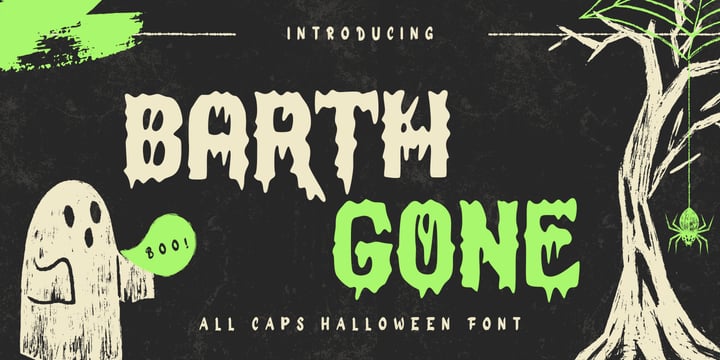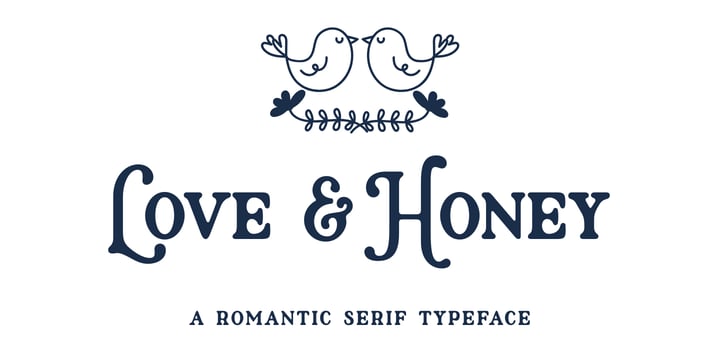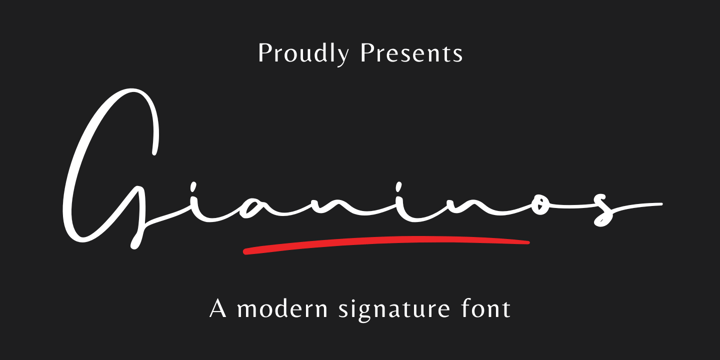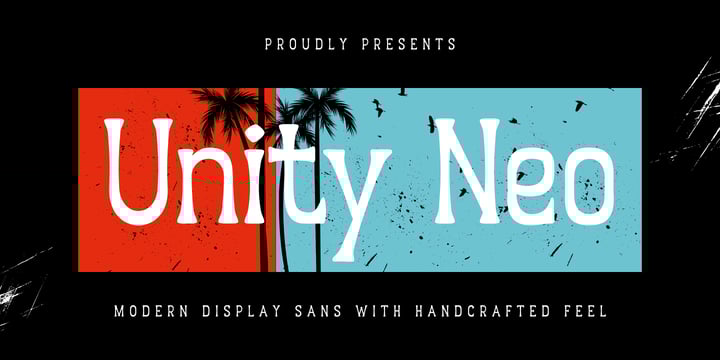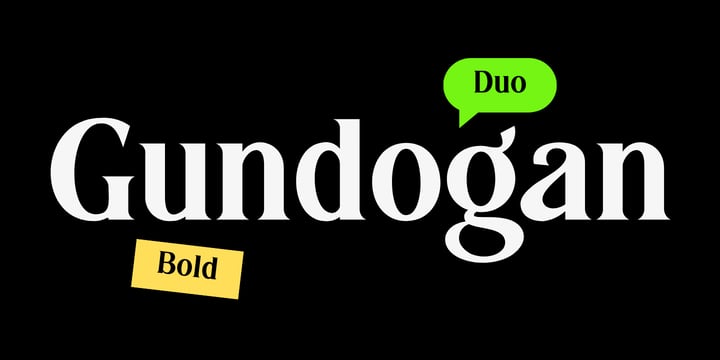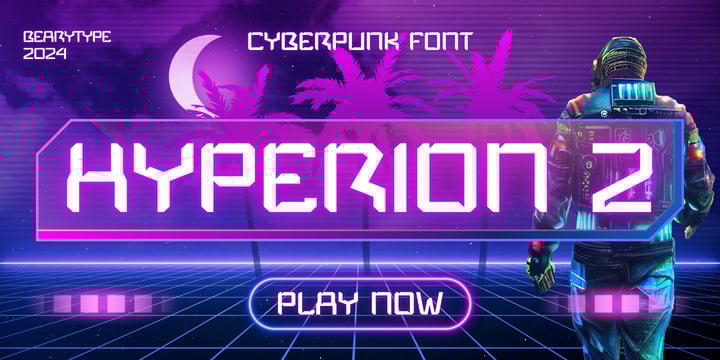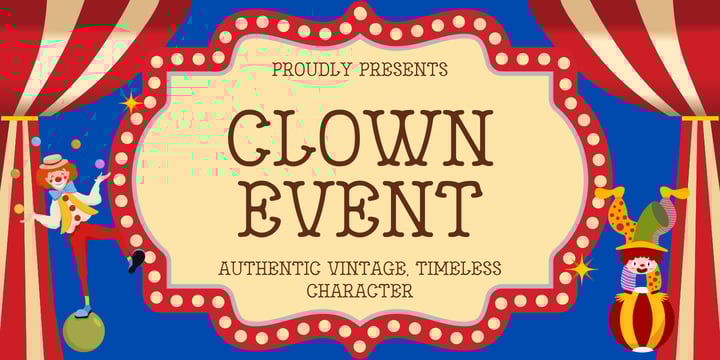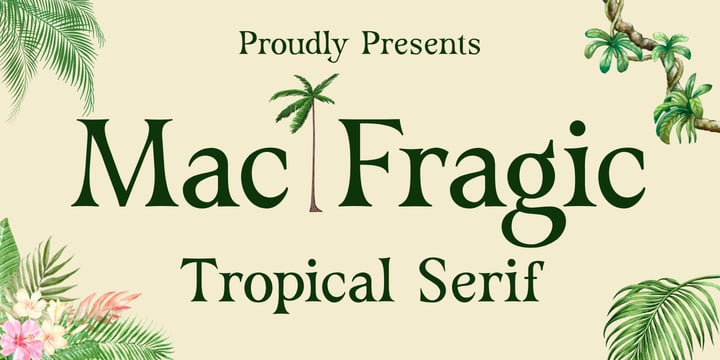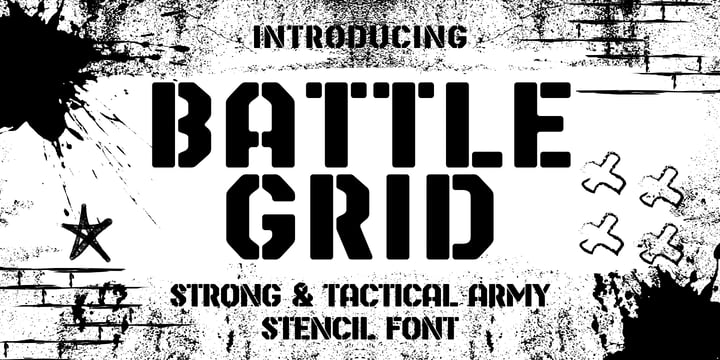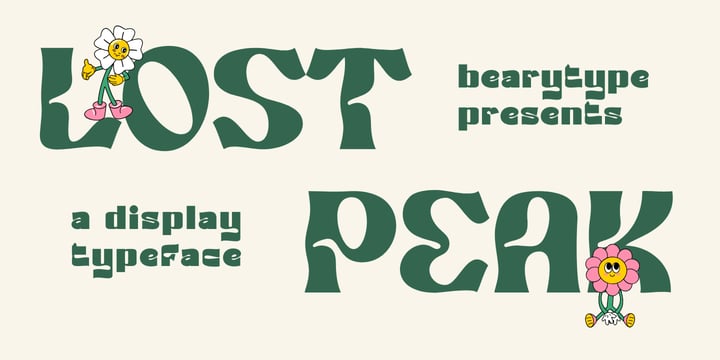
All The Fonts You Will Ever Need 135 Fonts Mega Pack
All The Fonts You Will Ever Need – 135 Fonts Mega Pack is the ultimate all-in-one typography collection for designers, creators, and brands who want unlimited creative power in one place.
This massive bundle includes a perfectly balanced mix of elegant Serif, clean Sans Serif, and expressive Script & Handwritten fonts – giving you every style you need for any type of project:
Luxury branding & packaging
Modern logos & visual identity
Wedding & feminine design
Editorial & magazine layouts
Social media & Canva content
Business and corporate design
Handmade & artistic projects
Printable crafts, stickers, merchandise, and more